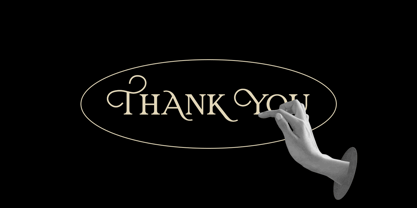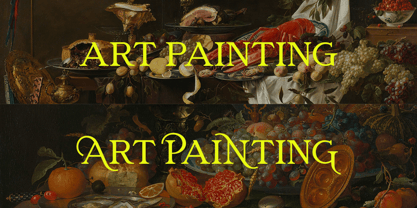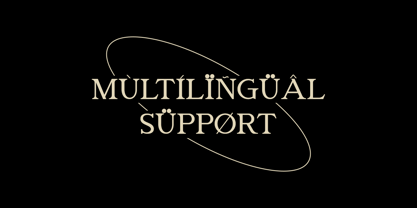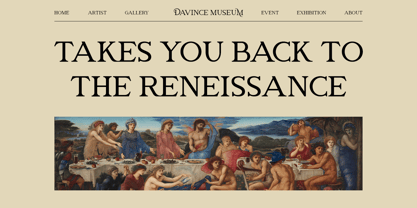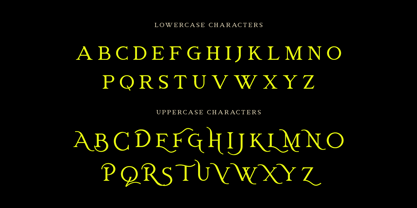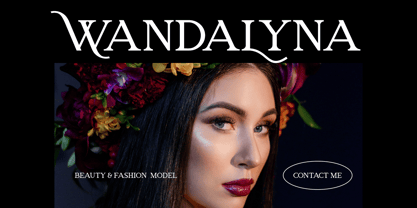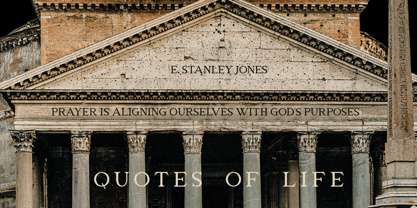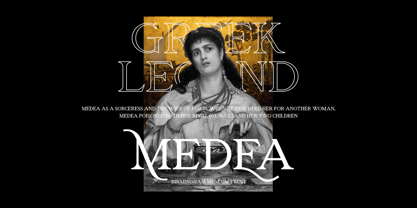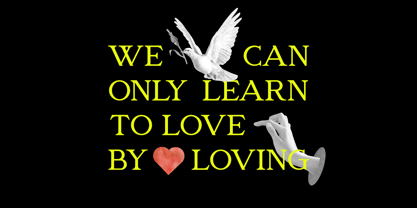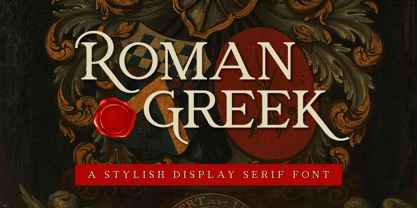
Roman Greek
by Rockboys Studio
The Roman Greek Font Family was designed by Hayinah and published by Rockboys Studio. Roman Greek contains 1 styles. More about this family
Roman Greek is an elegant and distinct serif font. Suitable to a wide variety of designs due to its neat and simple style, this font has the potential to become your favorite go-to font, no matter the occasion!